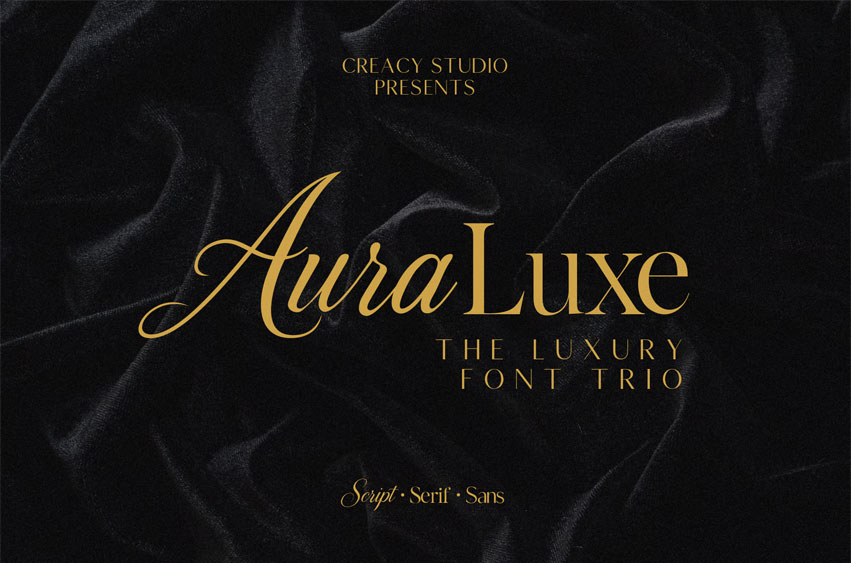
Auraluxe Font: Elevate your branding with Auraluxe, a refined font trio designed for high-end elegance. Featuring Script, Serif, and Sans Serif styles, this collection strikes the perfect balance of elegance, modernity, and versatility.
Whether for luxury branding, packaging design, fashion editorials, wine & perfume labels, or boutique hotels, Auraluxe elevates your project with a premium aesthetic.
• Auraluxe Script – flowing, elegant calligraphy for signatures & branding
• Auraluxe Serif – classic editorial-style serif for timeless appeal
• Auraluxe Sans – modern minimal sans for clean sophistication
• Uppercase & lowercase letters
• Numbers & punctuation
• Luxury branding & packaging
• Fashion & editorial design
• Perfume, wine, and cosmetics labels
• Hotel & restaurant identity
• Wedding invitations & stationery
With Auraluxe, every letter is designed to exude refinement and exclusivity — making your brand feel truly unforgettable.